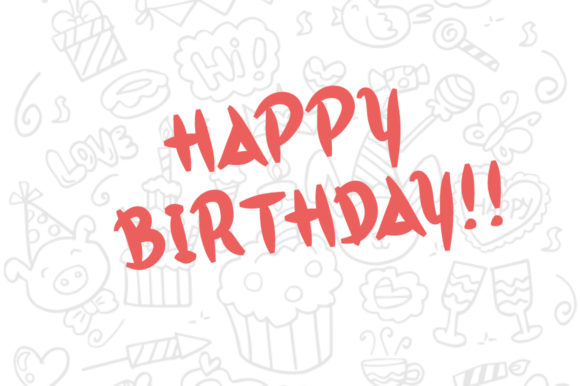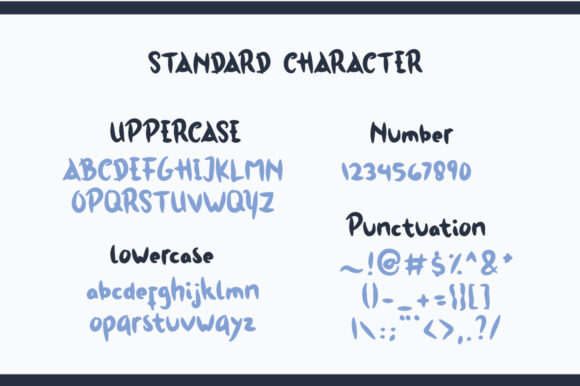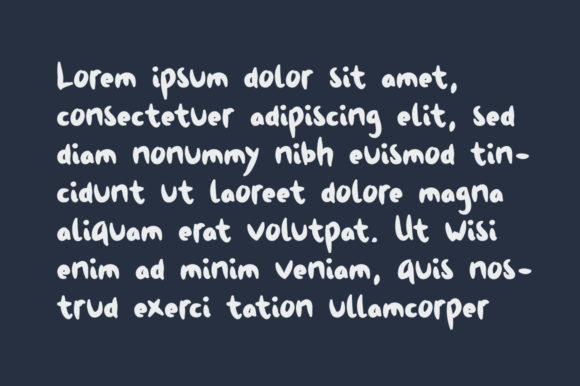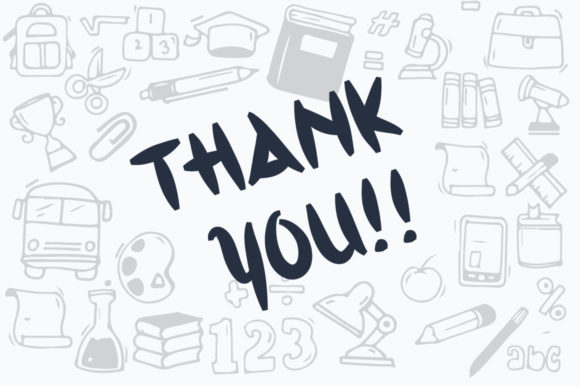
Introduction to Maddox Font
Maddox is a fun, bold and brushed display font.
Add this chunky lettered font to your designs and notice how it makes them come alive .